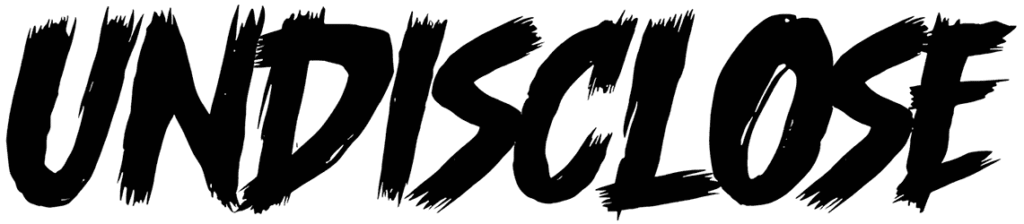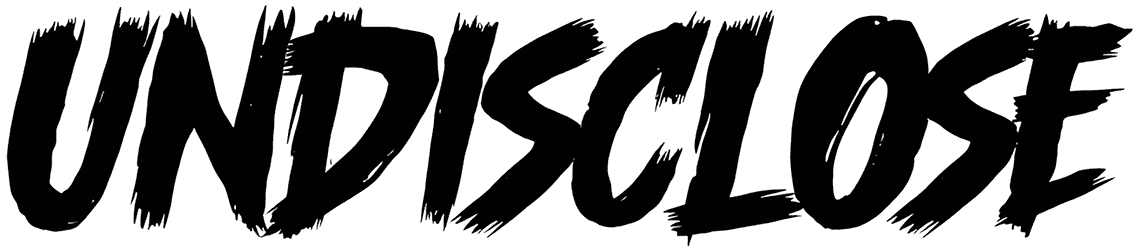
Undisclose Font
Undisclose is a horror font like scarecrows made of straw, and can create a sense of stillness and dread of a scary farm. You can use this fancy font anywhere that needs expressive characters without additional decorations.
Even without some numbers and small letters, it can convey your message most straightforwardly and finally leave a beautiful image of your mental ideas. So to be unique in designing your Halloween posters, ads, and packaging this year, Undisclose is all you need.